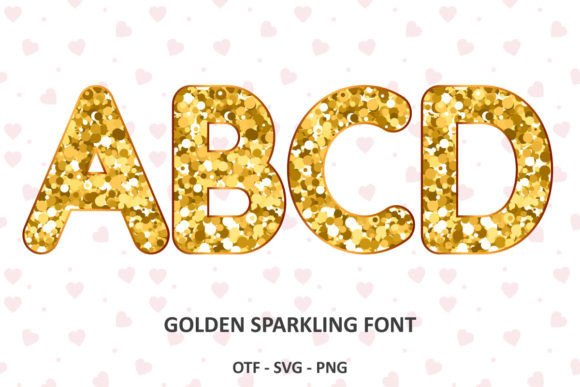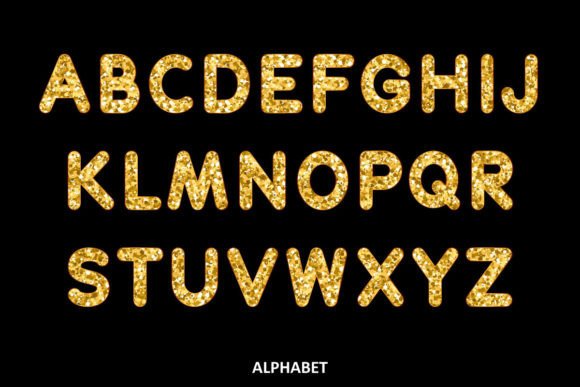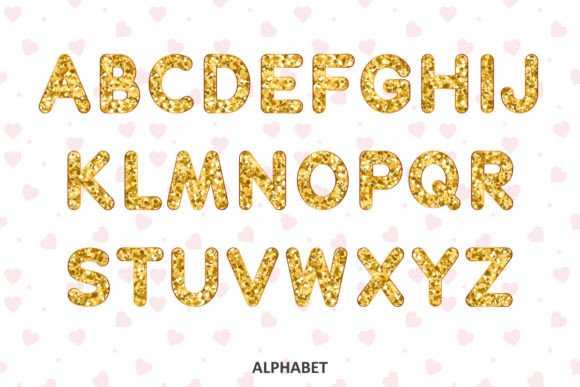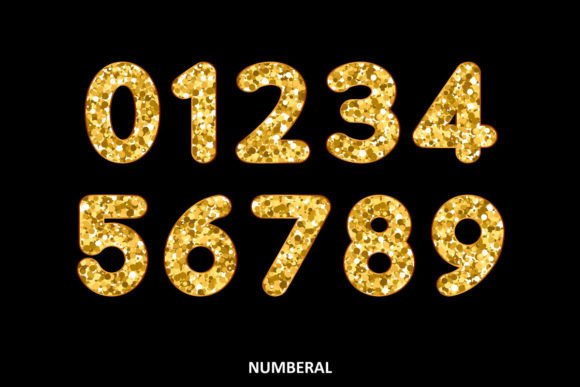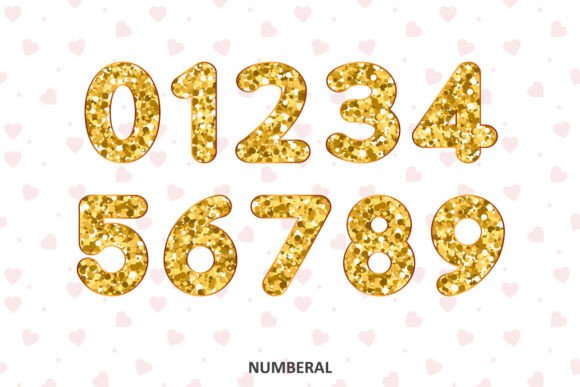
Introduction to Golden Sparkling Font
Introducing the “Golden Sparkling” font with a classy touch.
— Golden is one of the most awe-provoking things Its mesmerizing shine twinkles like someone cast a spell on it that will brighten up each of your designs.